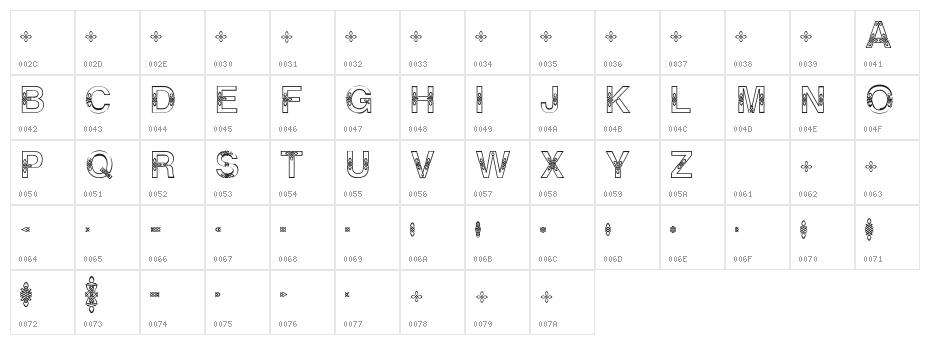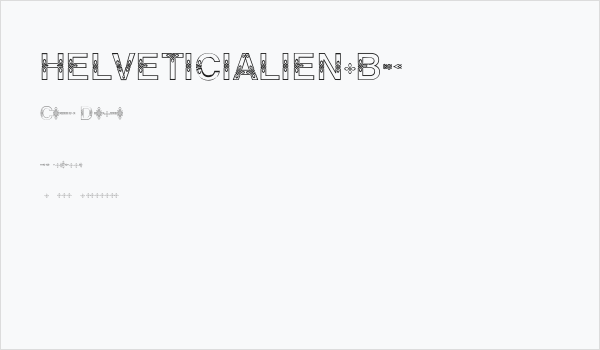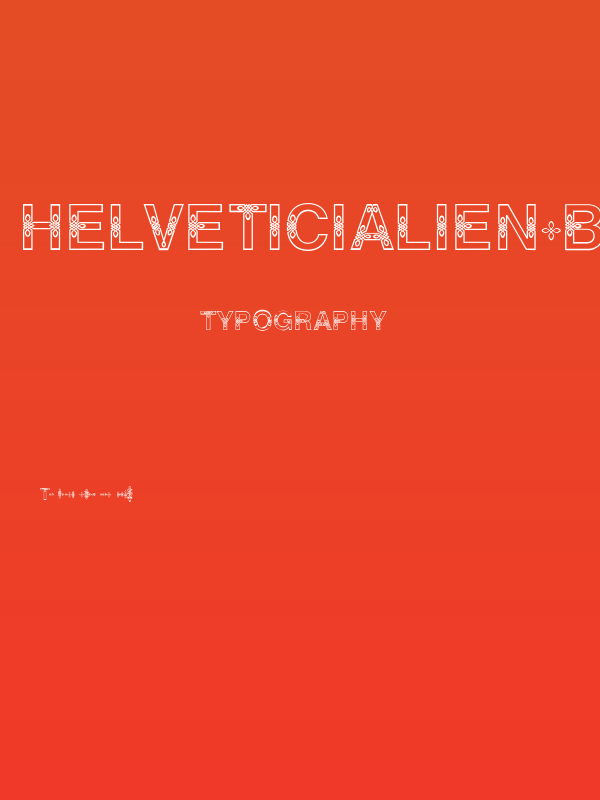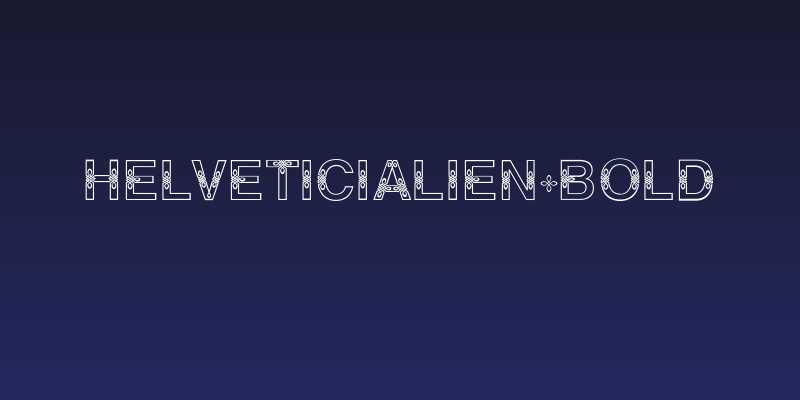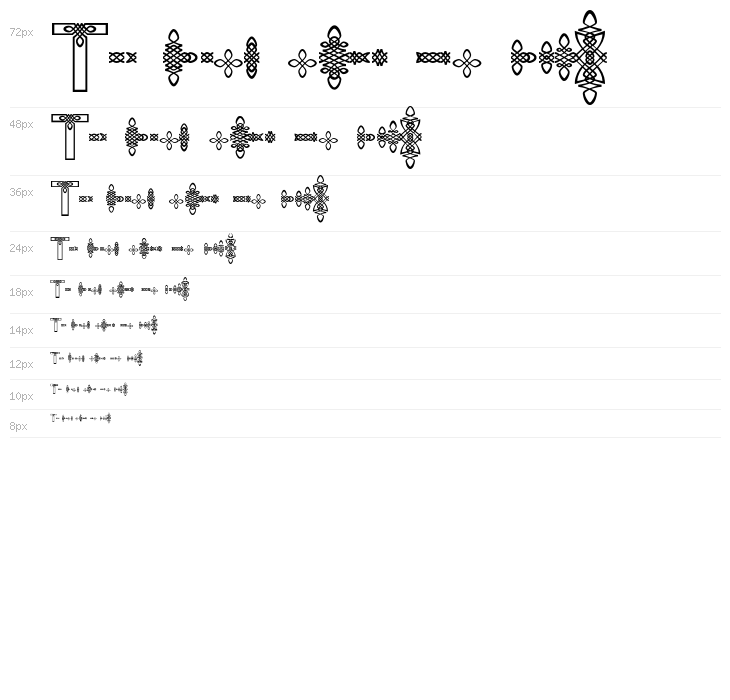
HELVETICIALIEN-Bold Font
HELVETICIALIEN-Bold Description
This font features a bold, decorative style with intricate patterns embedded within each letter. The uppercase letters are designed with a geometric, alien-like motif that adds a unique, futuristic flair. The characters are outlined, providing a sense of depth and dimension. The absence of lowercase letters and numbers suggests a focus on display purposes. The special characters are replaced with elaborate, ornamental designs, further enhancing the decorative nature of the font. This font is ideal for projects that require a standout, eye-catching typeface.
| Overall Style | Futuristic, Decorative |
| Proposed Projects | Ideal for sci-fi themed posters, album covers, or any project needing a unique, decorative typeface. |